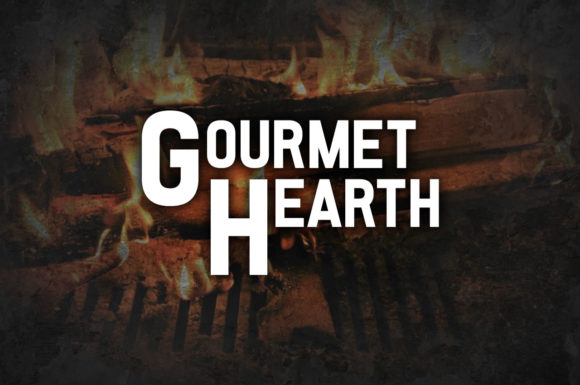
Prepare to turn up the heat in your designs with the Gourmet Hearth Font, a sizzling sans serif that will tantalize your taste buds and leave your audience hungry for more. Savor the bold and juicy flavors of this font, meticulously crafted by the culinary masters at Chequered Ink.
Imagine the impact when you unleash this tantalizing typeface upon your next campaign. It's like adding a dash of spice to your digital feast, awakening the senses and captivating your audience with its irresistible charm. Whether you're crafting tantalizing menus, mouthwatering recipes, or sizzling social media posts, the Gourmet Hearth Font is the secret ingredient that will elevate your creations to gastronomic heights.
Indulge in the rich, full-bodied flavors of this sans serif, where each letter is a delectable morsel, ready to tantalize your taste buds. Its bold strokes dance across the page like a symphony of flavors, leaving an unforgettable aftertaste that will linger in the minds of your audience.
But don't just take our word for it. Here's a savory sampler of why the Gourmet Hearth Font is the essential ingredient for your next design masterpiece:
• **Bold and Beautiful:** Make a statement that sizzles with the Gourmet Hearth Font's audacious personality. Its thick, juicy strokes demand attention, making your headlines, logos, and posters impossible to ignore.
• **Versatile and Delectable:** From tantalizing menus to mouthwatering recipes, from sizzling social media posts to unforgettable branding, the Gourmet Hearth Font is the all-purpose seasoning that adds flavor to any design.
• **Timeless and Enduring:** Like a fine wine, the Gourmet Hearth Font ages gracefully, maintaining its delectable charm and relevance over time. Its classic sans serif style ensures that your designs will stand the test of time, leaving a lasting impression on your audience.
Imagine the sizzle and pop as the Gourmet Hearth Font transforms your designs into culinary masterpieces. It's the perfect font for restaurants, food bloggers, chefs, cookbook authors, and anyone who wants to add a dash of flavor to their creations.